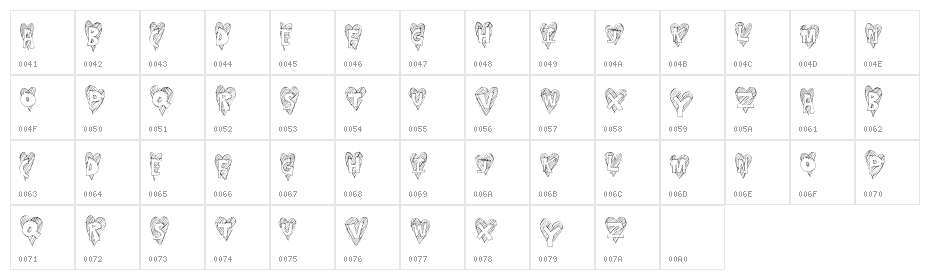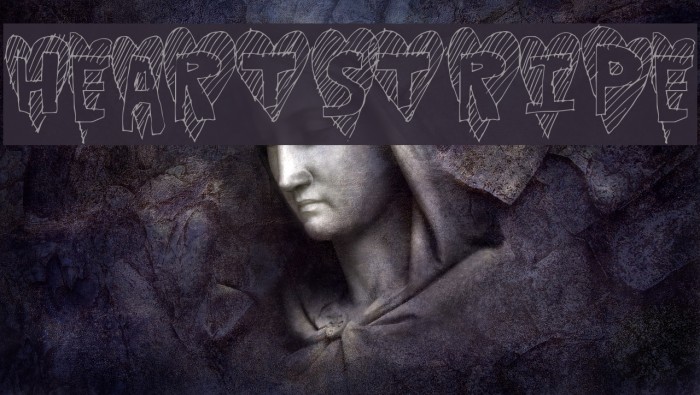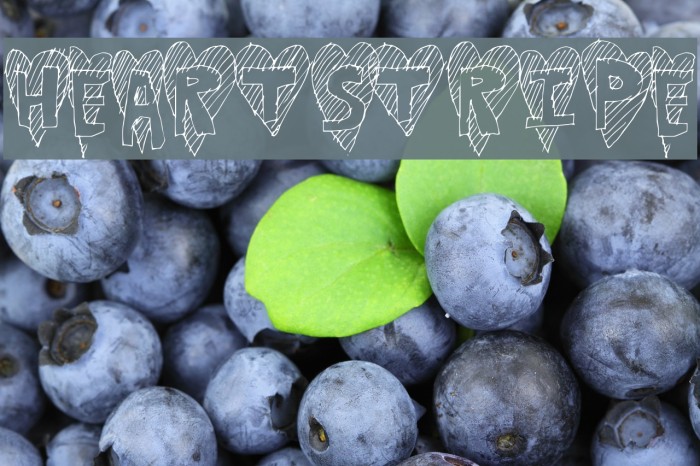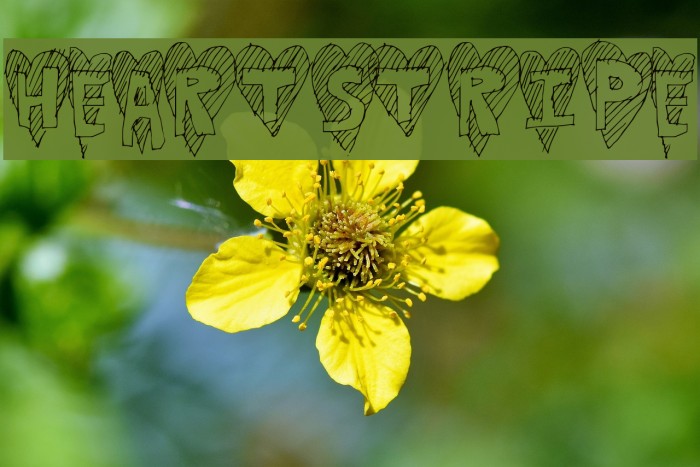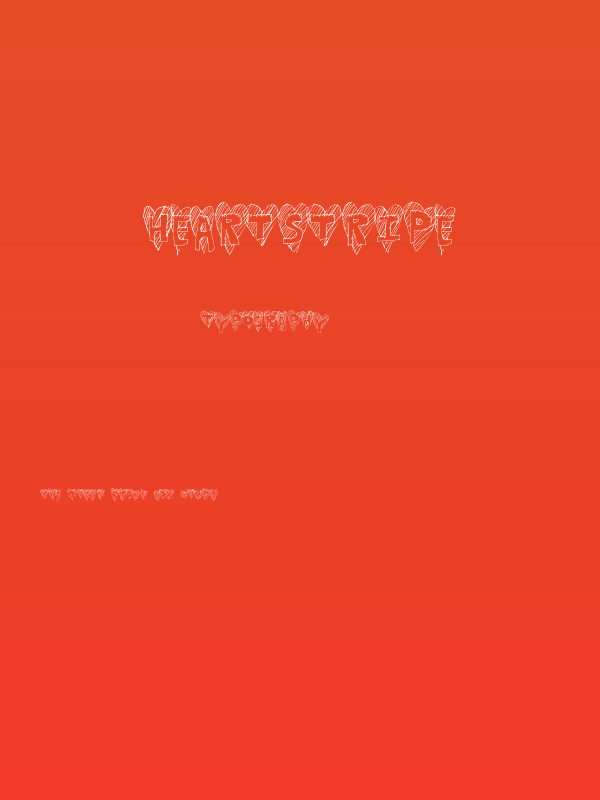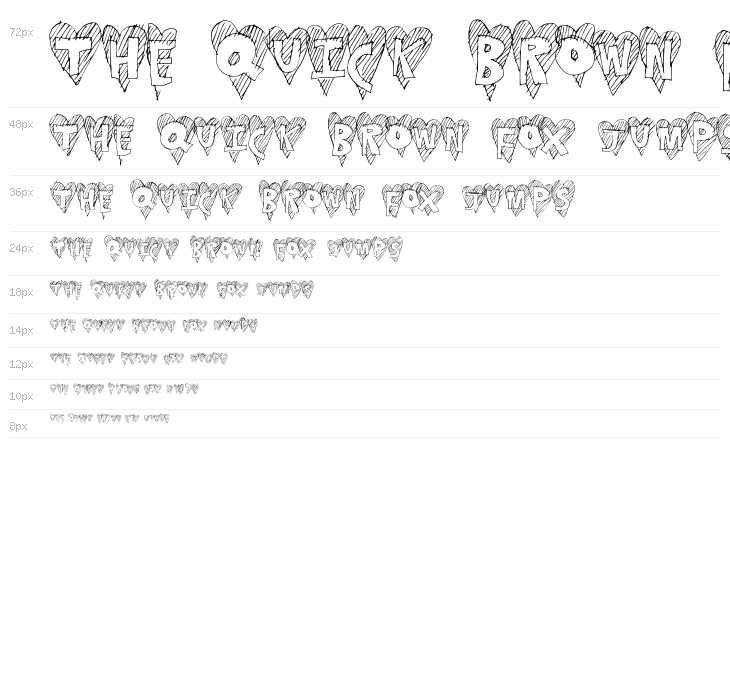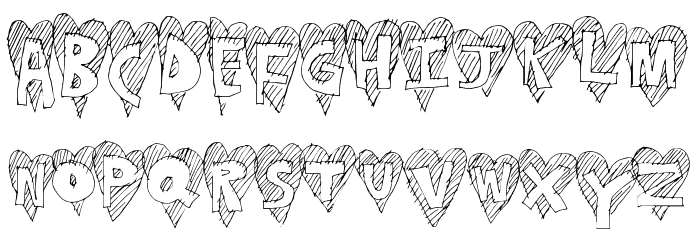
HeartStripe Font
HeartStripe Description
This playful and decorative font features letters encased in heart shapes with a striped pattern. The design is whimsical and eye-catching, making it ideal for projects that require a fun and romantic touch. The uppercase and lowercase letters maintain a consistent style, with each character uniquely integrated into the heart motif. The font includes a variety of special characters, all following the same heart-themed design. The striped pattern adds a textured look, enhancing the overall visual appeal. This font is perfect for creative projects that aim to convey love, joy, or a sense of playfulness.